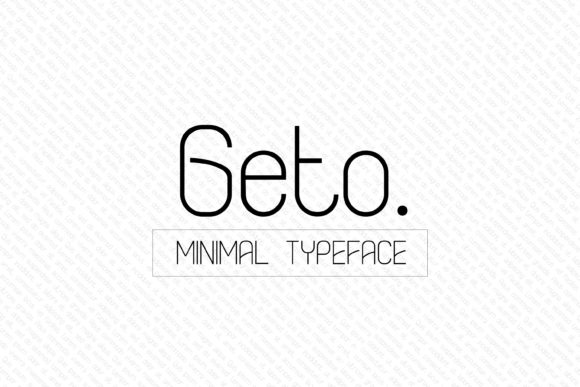
Behold Geto, the font of grace, designed to enthrall and ignite your creative spirit. Its delicate curves and sharp edges dance in harmony, captivating the eye with a timeless elegance. This sans serif masterpiece is more than just a font; it's an invitation to embark on a visual journey where your imagination knows no bounds.
Step into a realm of limitless possibilities with Geto, where the ordinary transforms into the extraordinary. From sleek logos that command attention to captivating headlines that leave an imprint, this font has the power to elevate your designs to new heights. Its ability to seamlessly blend with diverse styles and concepts makes it a versatile choice for any project.
With Geto by your side, you'll discover a world where legibility meets artistry. Its meticulously crafted letterforms ensure clarity and readability across all platforms, making it ideal for both print and digital endeavors. Experience the joy of crafting designs that not only convey your message but also leave a lasting impression.
Don't settle for ordinary fonts that blend into the background. Choose Geto, the font that commands attention and sparks conversations. Its unique personality adds a touch of intrigue and sophistication to any project, making it the perfect choice for those who value individuality and impact.
Immerse yourself in the world of Geto and watch as your creative vision takes flight. Its versatility knows no bounds, adapting effortlessly to a myriad of design concepts. Unleash your imagination and let this font guide you toward masterpieces that resonate with your audience.